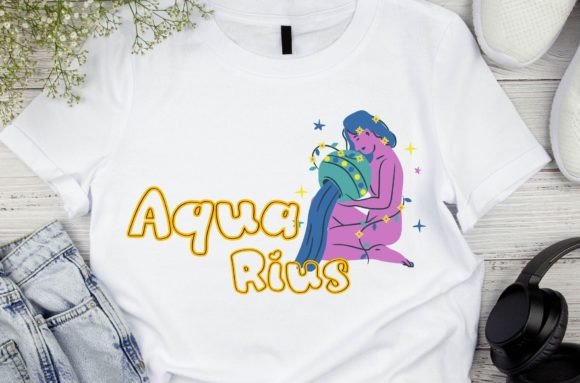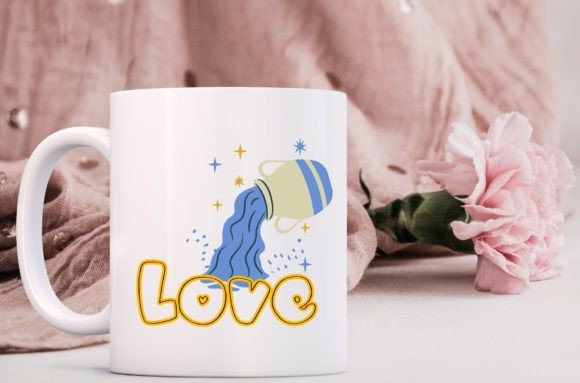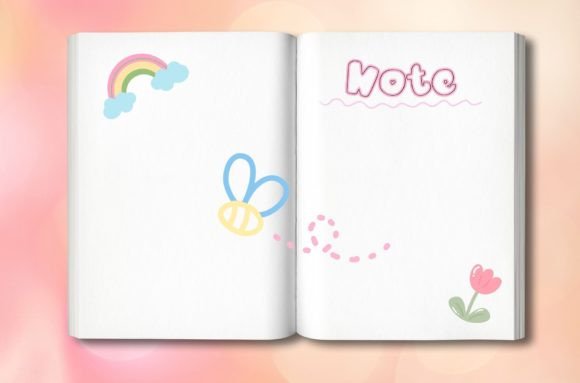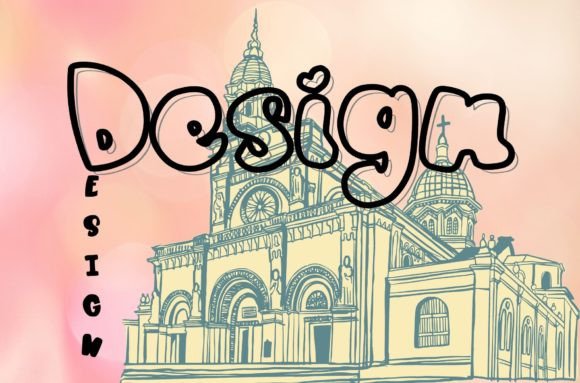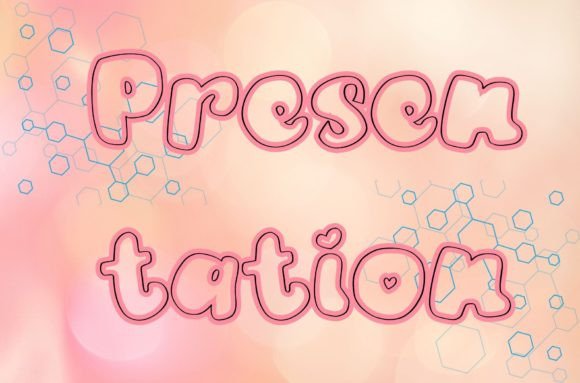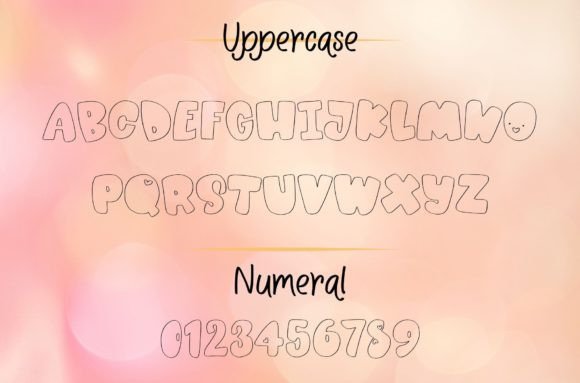
Introduction to Chunky Pop Line Font
Do you remember the rush of excitement you feel when you stumble upon the perfect design resource for your next creative project? It’s that moment when everything falls into place, and your ideas start to come alive. For designers, finding the right font can make all the difference between a mediocre design and a truly exceptional one. And, if you’re looking for a font that adds a touch of whimsy and personality to your work, look no further than the Chunky Pop Line Font.
This high-quality, free download font is a game-changer for designers of all levels, offering a unique and playful style that’s perfect for a wide range of applications, from logos and branding to wedding invitations and social media graphics. With its transparent background and effortless feel, the Chunky Pop Line Font is an absolute must-have for any creative project.
Key Features of Chunky Pop Line Font
- High-quality, bold font style with a unique pop line design, ideal for creative projects.
- Comes with a transparent background, allowing for easy integration into various design elements.
- Unique pop line design adds a touch of creativity and playfulness to any project.
Honest Review: Chunky Pop Line Font
I recently had the chance to work with the Chunky Pop Line Font, and I must say it’s been a game-changer for my creative projects. The high quality of this font is undeniable, and it’s been a fantastic addition to my design resource library.
- ✨ Clean and modern design aesthetic that’s perfect for contemporary projects
- ✨ Smooth, bold lines that make it ideal for headings and titles
- ⚠️ Limited character set, which may require additional font pairing for more extensive projects
- ⚠️ May not be suitable for projects requiring a lot of subtlety or nuance in typography
Overall, I’m thoroughly impressed with the Chunky Pop Line Font. Its unique design and high quality make it a fantastic addition to any designer’s toolkit. While it may have some limitations, it’s definitely worth checking out for your next creative project. Plus, it’s available as a free download, making it an even more attractive option.
Tips for Getting the Most Out of Chunky Pop Line Font
Use the Chunky Pop Line Font with a transparent background to create a modern and minimalist design. Experiment with different font sizes and colors to add visual interest to your creative project. This font is also great for creating social media graphics and advertisements.
The Chunky Pop Line Font is perfect for creating high-quality designs for social media, advertising, and branding. It’s also great for adding a unique touch to presentations, documents, and websites. With its free download and transparent background, this design resource is a must-have for any creative project.